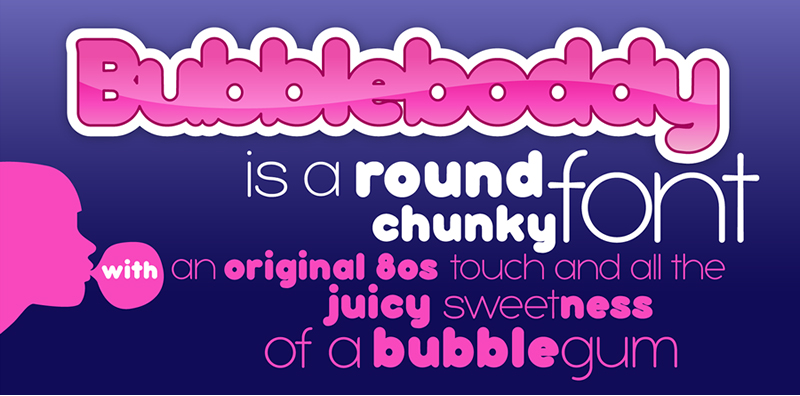
Bubbleboddy is the first version of Bubbleboddy Neue Family. If you like this font, try Bubbleboddy Neue: it has been completely redesigned preserving the original round and chunky flavor and adding three new weights and a complete cyrllic and greek character set to infuse your design with an original 80s touch and all the juicy sweetness of a bubblegum. Born for logos and display use, the family has now got a complete facelift with better readability onscreen for web use and offline for text setting. Take care: support and sale of original Bubbleboddy is discontinued, but the two original weights are included as part of the compatibility pack of the commercial version. This trial font is TOTALLY FREE for NONCOMMERCIAL USES. For commercial uses you must get the full commercial typeface at: http://www.zetafonts.com/bubbleboddy Have a question?: info@zetafonts.com |